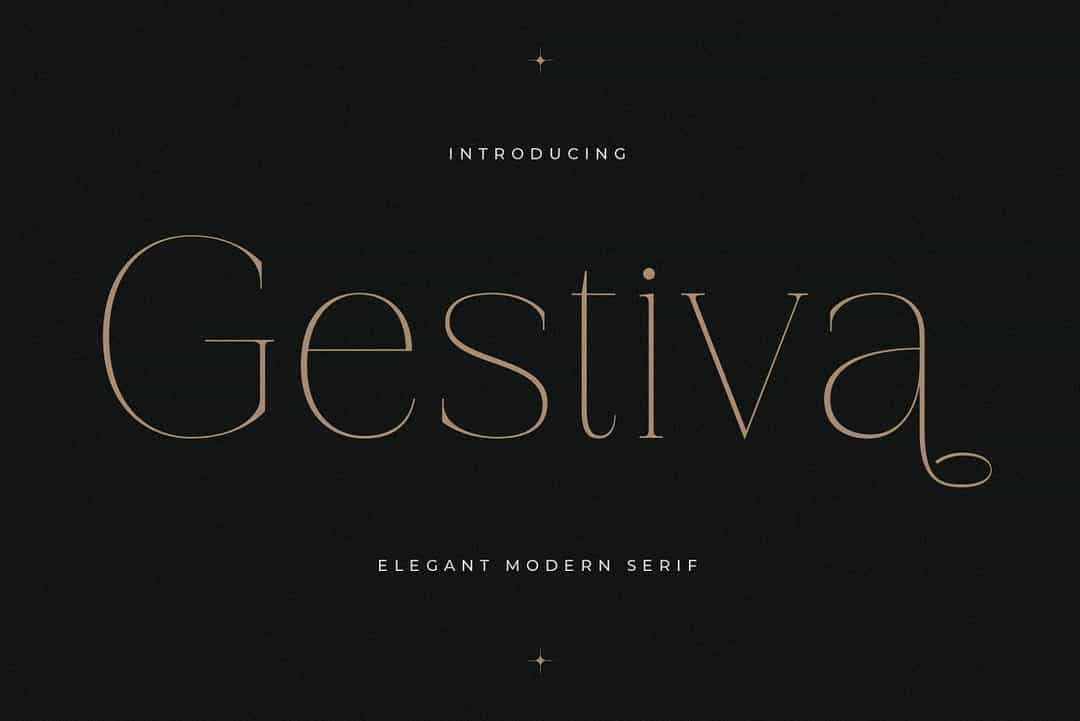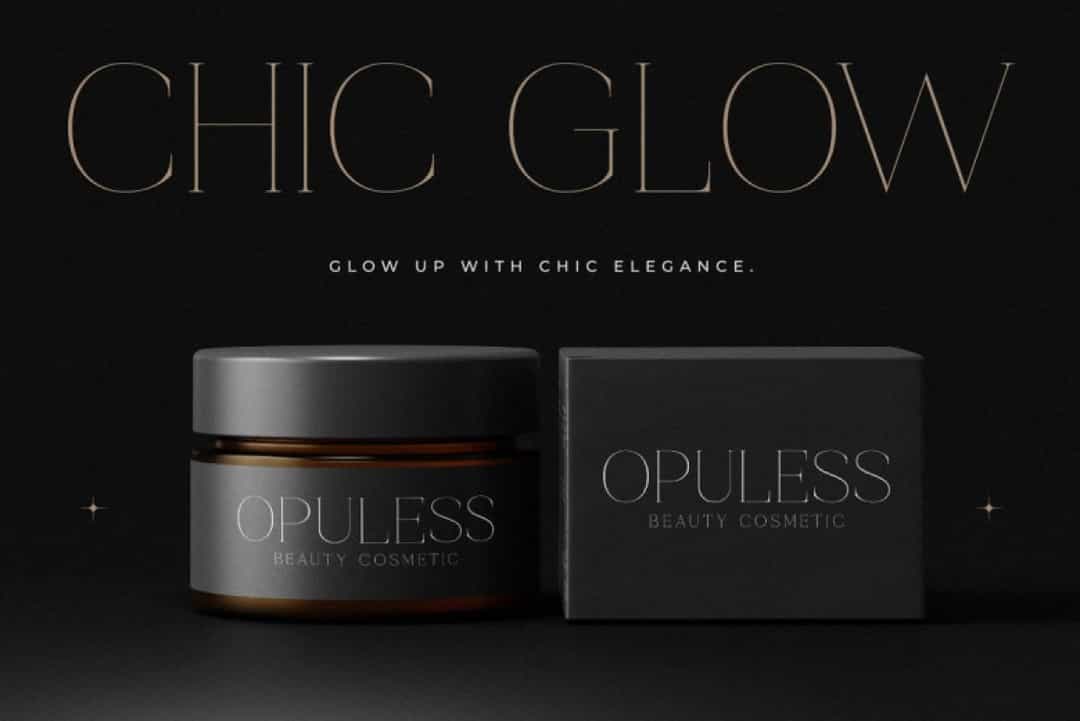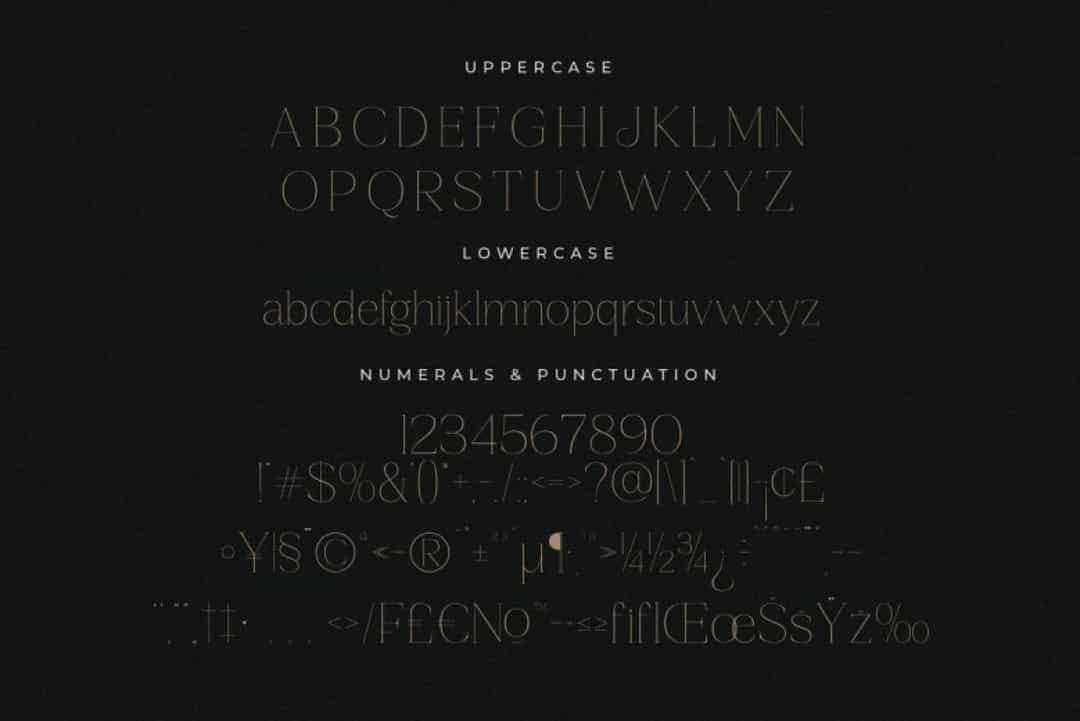
Gestiva can be described as an elegant yet sophisticated modern serif typeface with its unique style and contemporary appearance. It makes a fantastic font choice when creating sophisticated yet elegant logos, movie or book name designs, fashion brand clothing designs, magazine letters, quotes or anything else you may require.